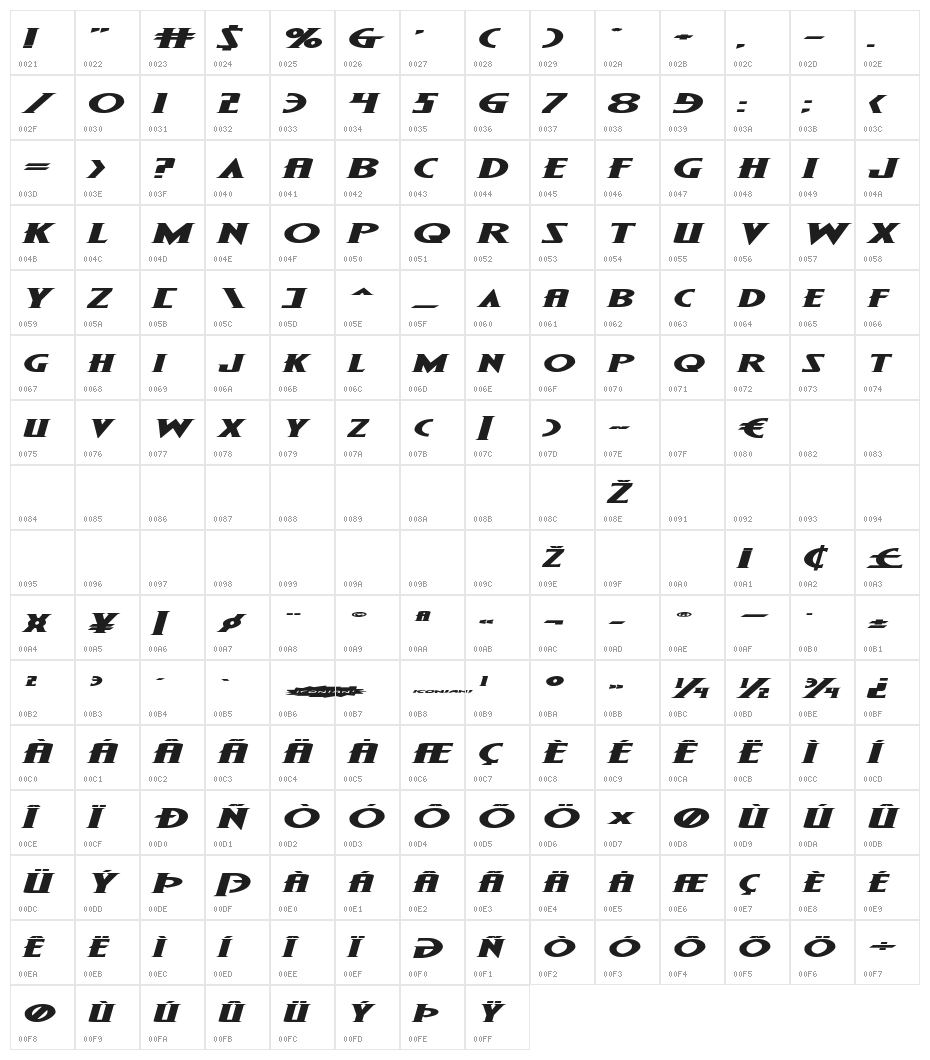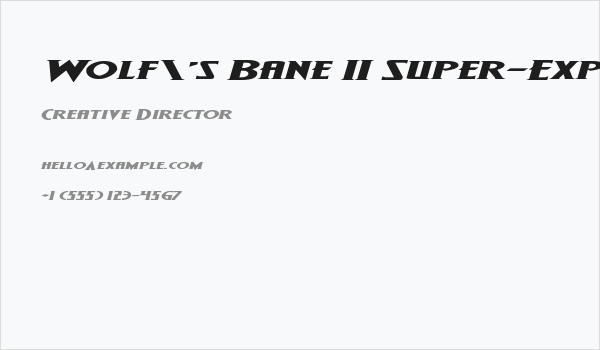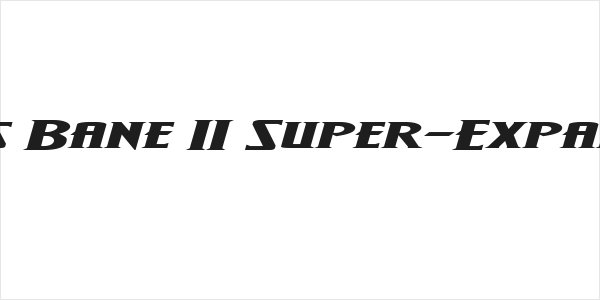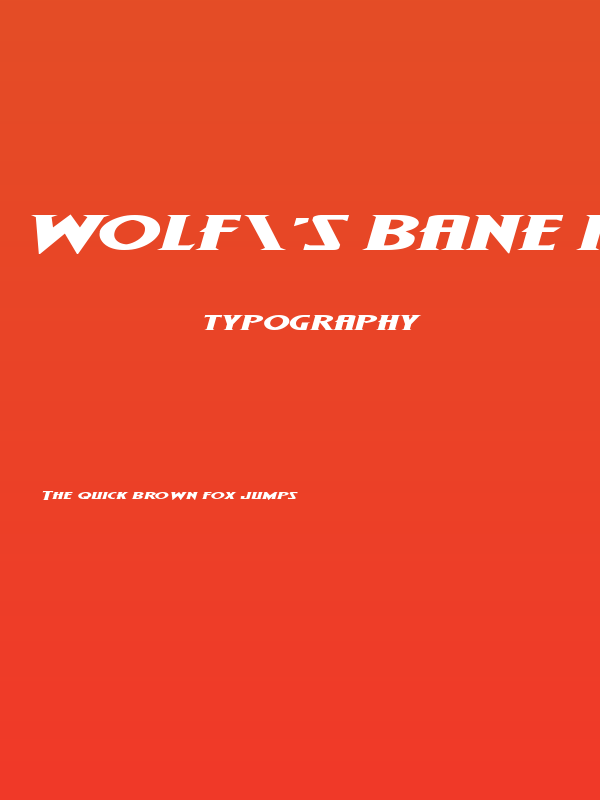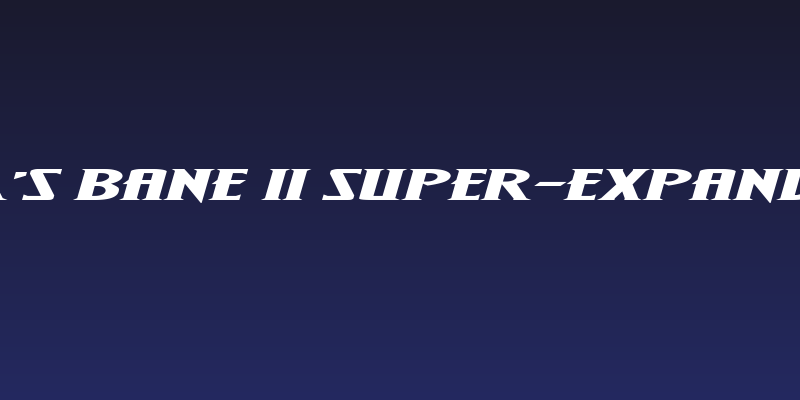
Wolf's Bane II Super-Expand Italic Font
Wolf's Bane II Super-Expand Italic Description
This font features a bold and dynamic style with a strong italic slant, giving it a sense of motion and energy. The characters are wide and expanded, creating a commanding presence. The sharp, angular edges and unique design elements make it stand out, while maintaining readability. It's a display typeface that captures attention with its modern and aggressive look, suitable for impactful headlines and branding. The uppercase and lowercase letters are consistent in style, and the numerals and special characters complement the overall aesthetic.